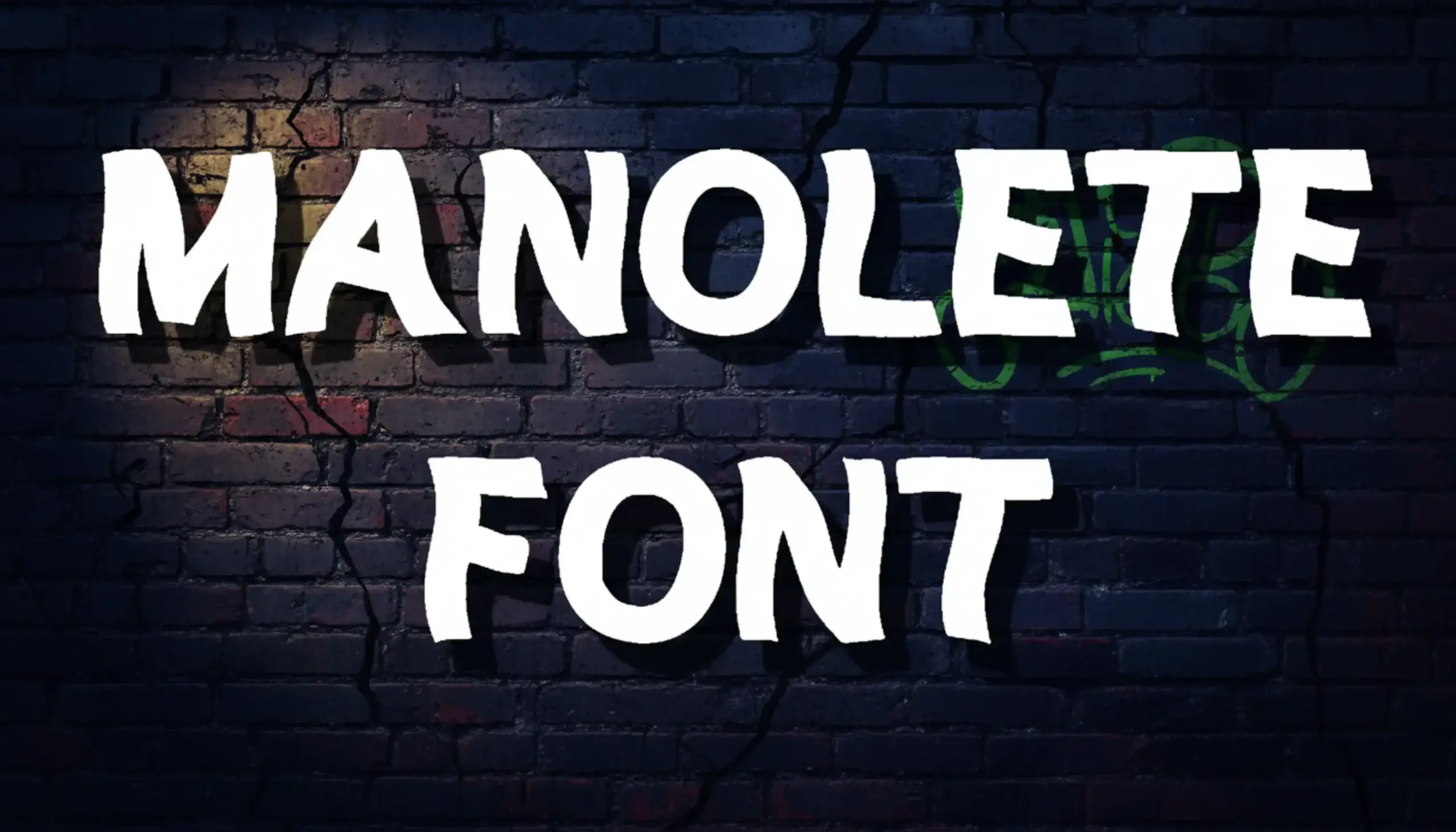
Manolete Font
Manolete
Manolete is a fancy font. Bold and full of character, it's built to stand out rather than blend in. You can download it for free and test it with your own words in the preview above.
What You Can Type With Manolete
You get every letter from A to Z in both cases and all the numbers from 0 to 9, which means Manolete can handle full sentences, dates and prices. Common punctuation such as &, !, ? and @ is included as well. It also has the accented letters you need for Spanish, French, German, Portuguese and Italian.
Where Manolete Works Best
Designers usually reach for fonts like Manolete when they're making posters, logos and eye-catching headlines. Use it for one standout word or headline and let simpler fonts handle the rest.
Does Manolete support accented letters?
Yes. Manolete includes the accented letters needed for Spanish, French, German, Portuguese and Italian, so it works for more than just English.